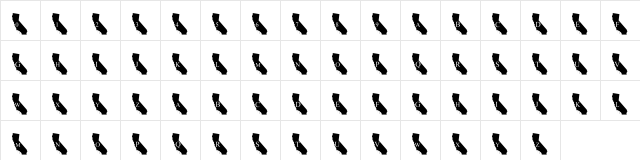
pf_california Regular
Design Context for pf_california Typeface
pf_california is a composed and adaptable typeface that performs quietly and consistently across a wide range of design contexts.